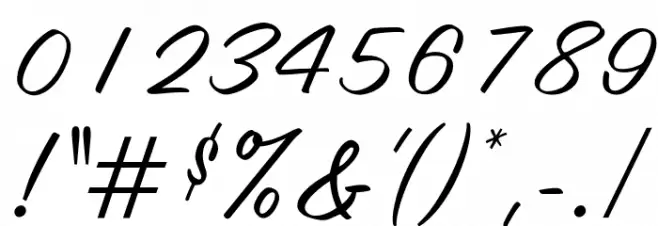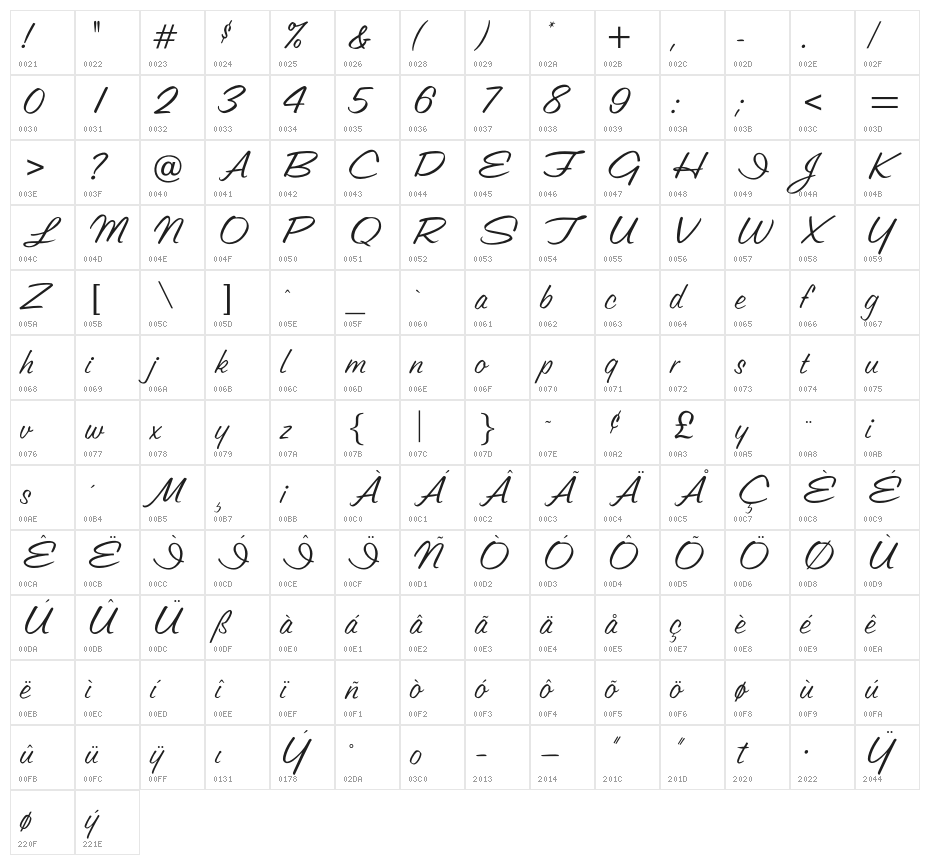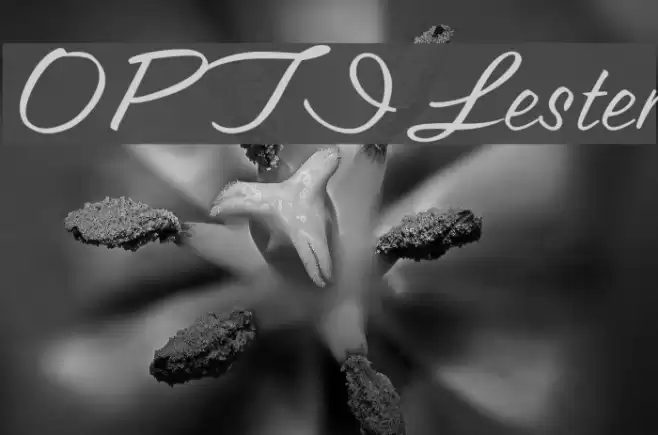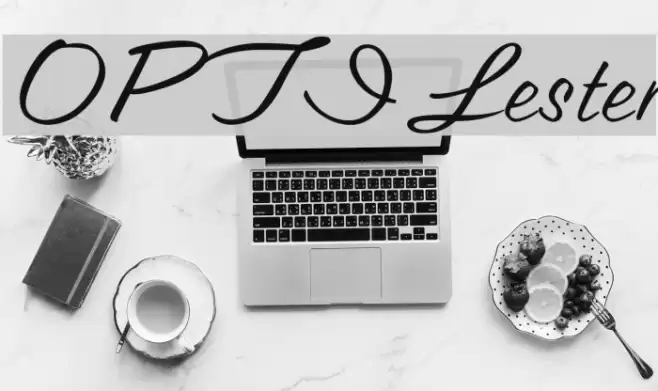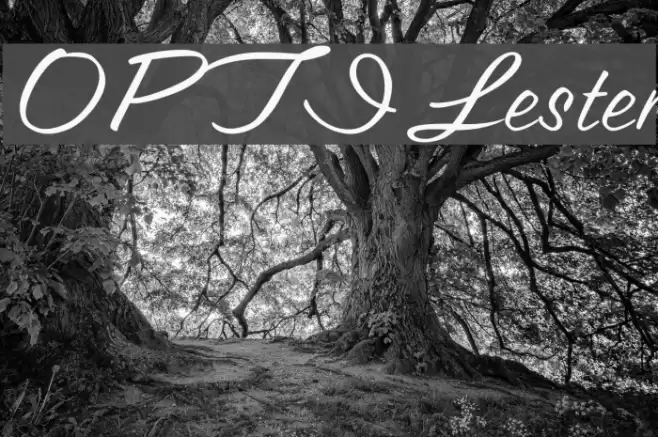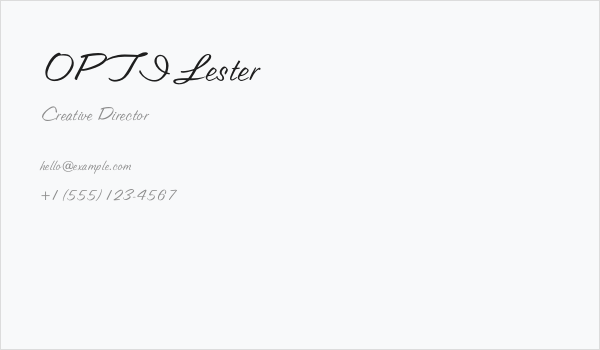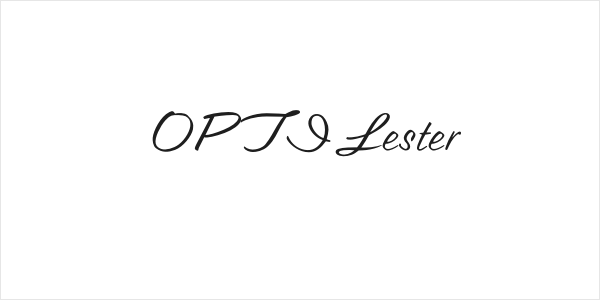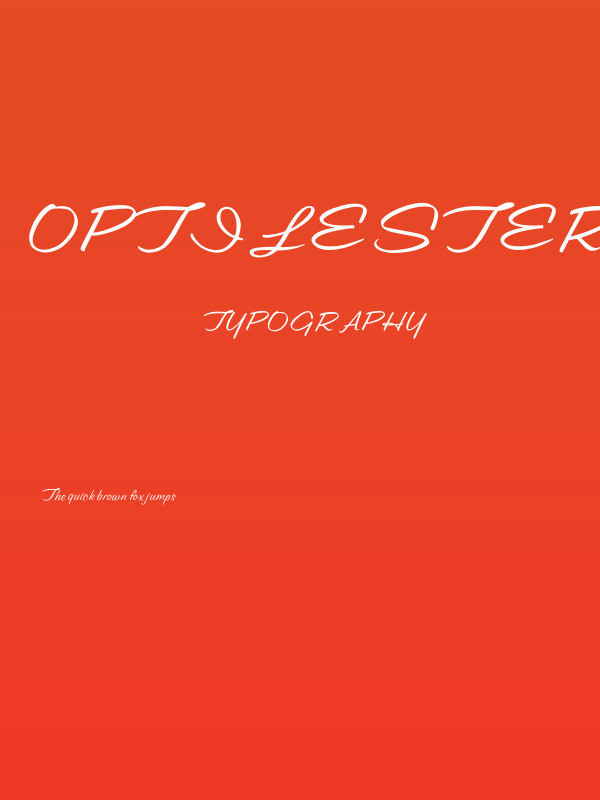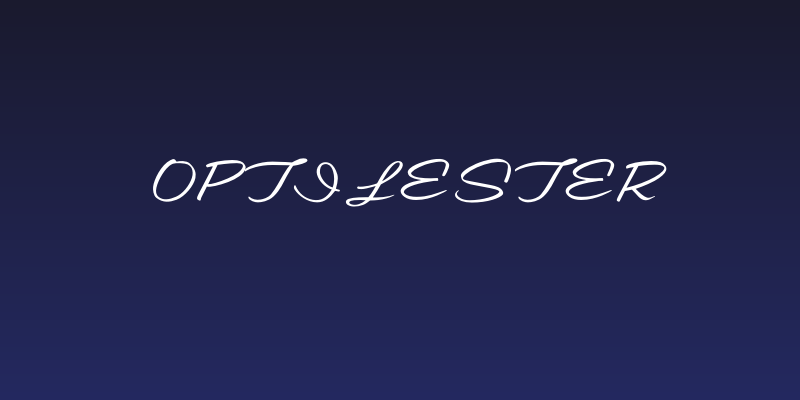
OPTILester Font
OPTILester Description
This font features a flowing, cursive style with elegant, sweeping strokes that convey a sense of sophistication and fluidity. The uppercase letters are distinct with a slight slant, while the lowercase letters maintain a consistent, connected script that enhances readability. The numerals are designed to complement the letters, maintaining the same elegant curves and slanted style. Special characters are crafted with the same attention to detail, ensuring a cohesive look across all glyphs. This font's overall design is both stylish and versatile, making it suitable for a variety of applications.
| Proposed Projects | Ideal for wedding invitations, elegant branding, personal stationery, and decorative signage. |